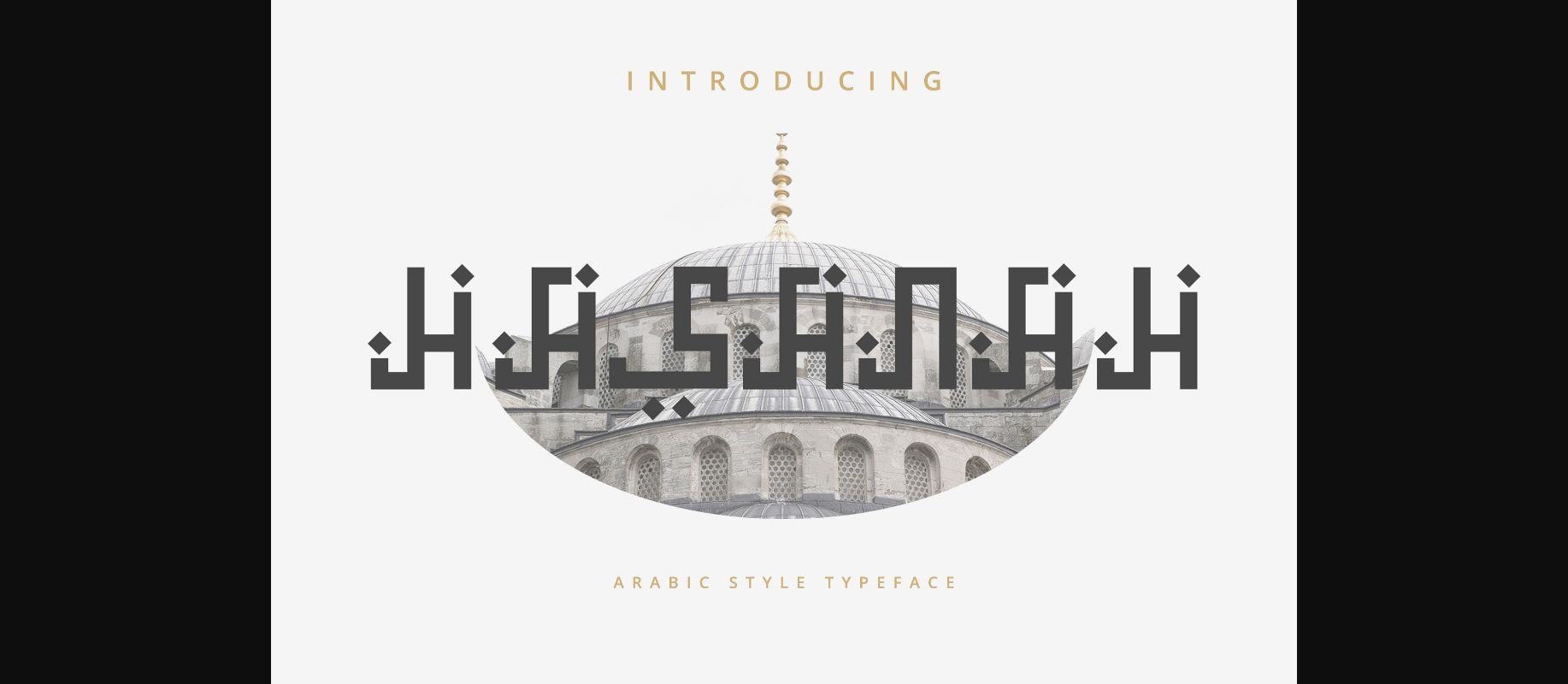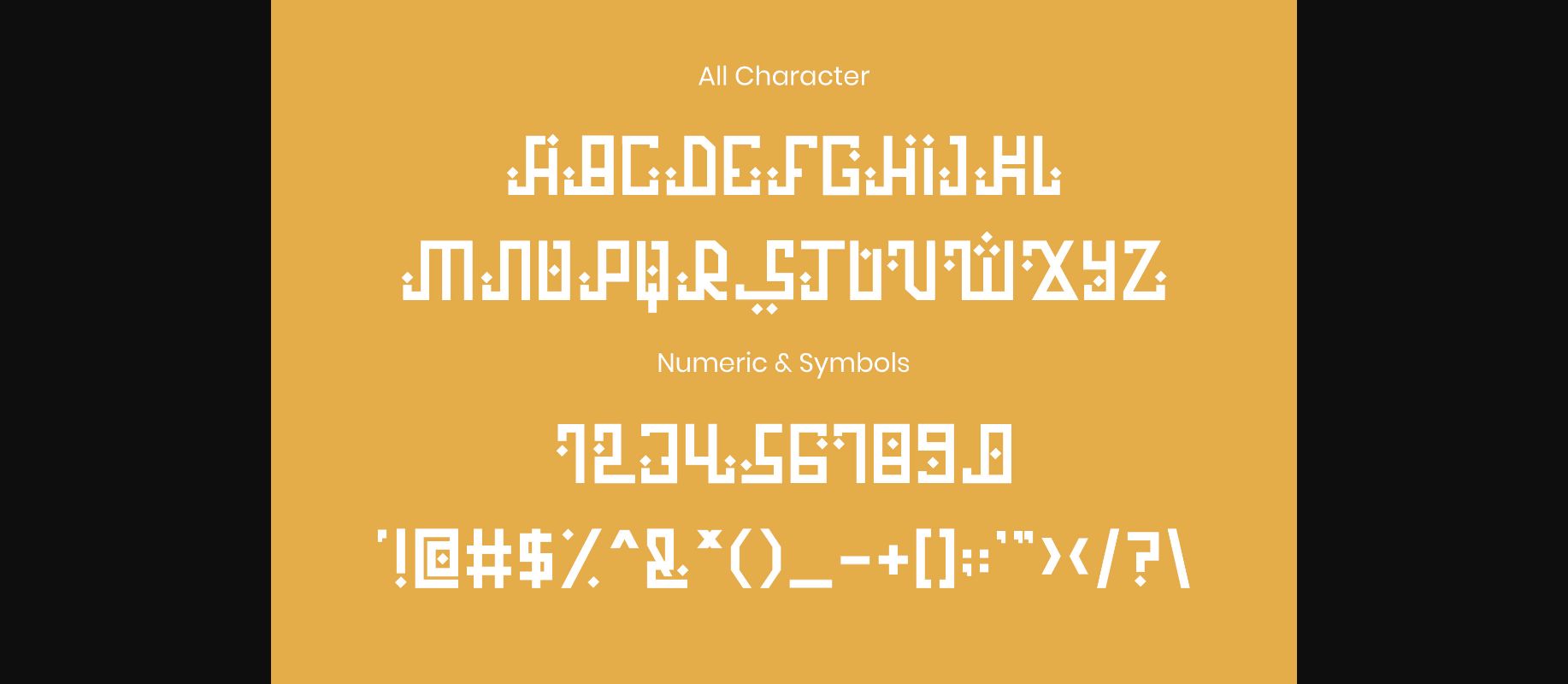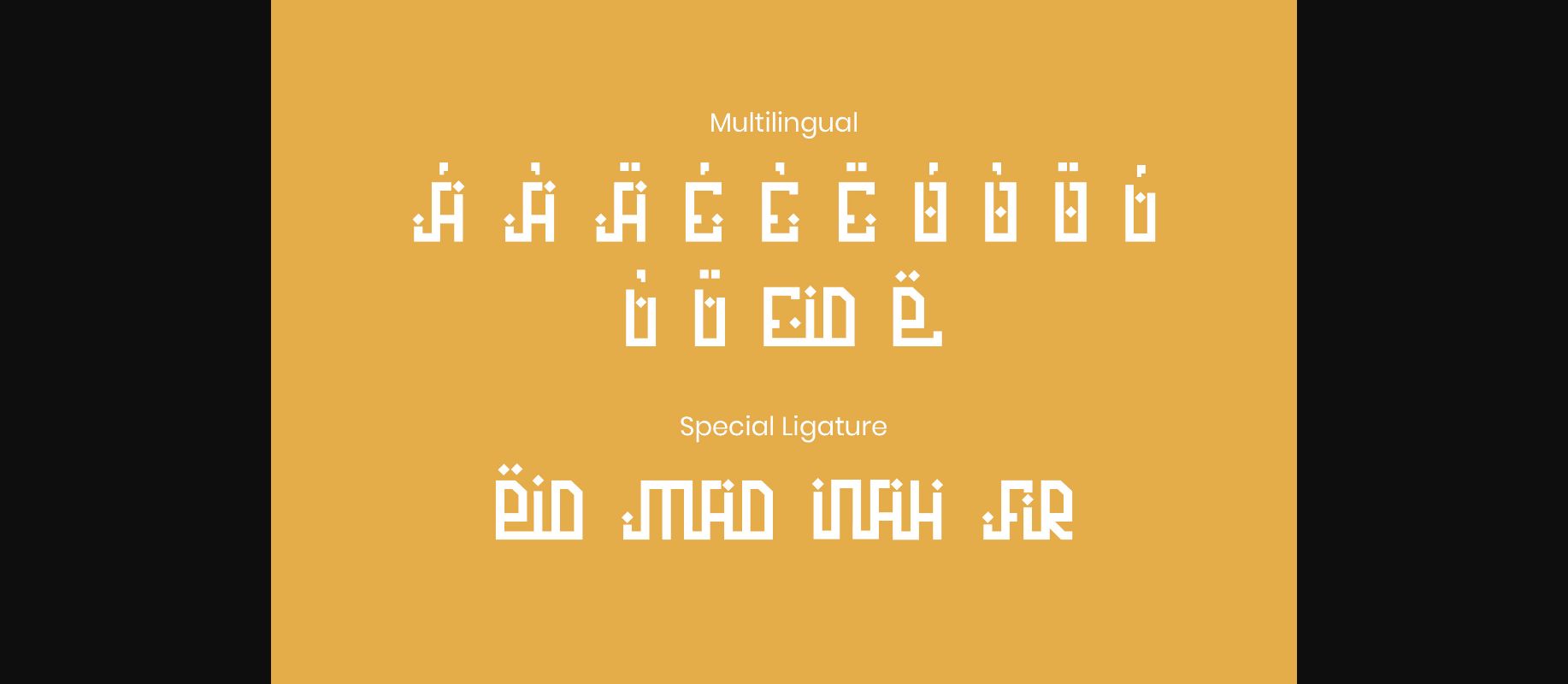
About Hasanah – Arabic Style Typeface Font
Hasanah is a decorative typeface inspired by the Arabic style. Its decorative, elegant, and cool look makes it suitable for events, Muslim and Islam creations, fashion, apparel projects, signature, album covers, logos, branding, magazines, social media posts, advertisements pamphlets, and many more! Use this great font to add that special unique touch to any design idea you can think of!